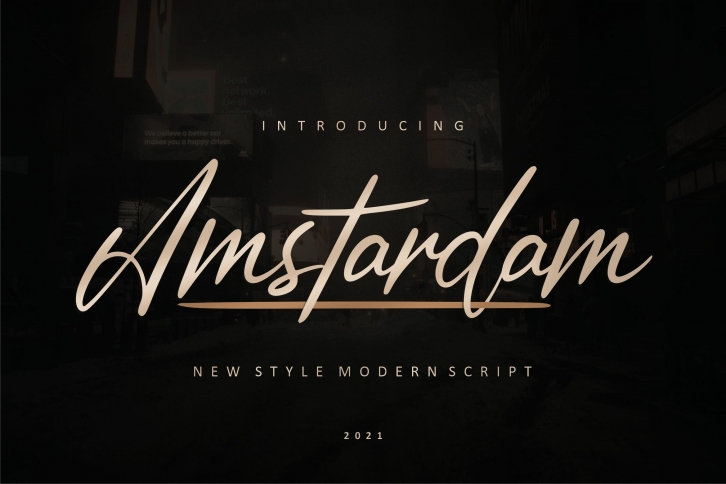
Amstardam is a gorgeous font that was realeased on July 25, 2021. The font can be used in many style contexts and design environments. Perfect for invitations, magazines, websites, logos, and more! It was designed by Banyumili Studio and the file size is 6.74 MB. Thanks for checking out this font!